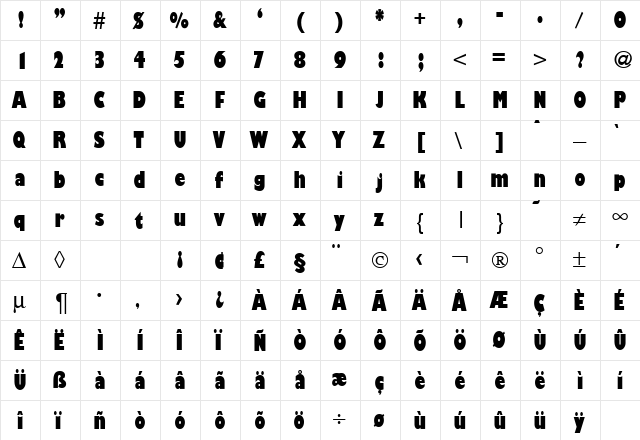
GibsonCondUltra Regular
Design Context for GibsonCondUltra Typeface
GibsonCondUltra takes a measured approach to typography — its balanced proportions and neutral character make it a reliable workhorse for both digital and print work. Its narrow stance lets it pack a punch even in space-constrained designs.